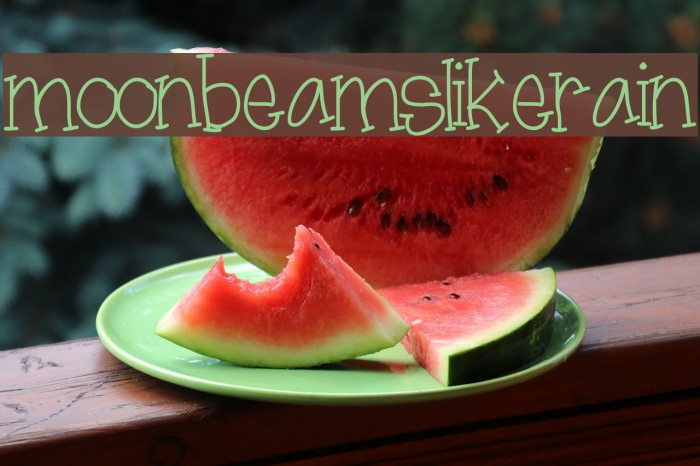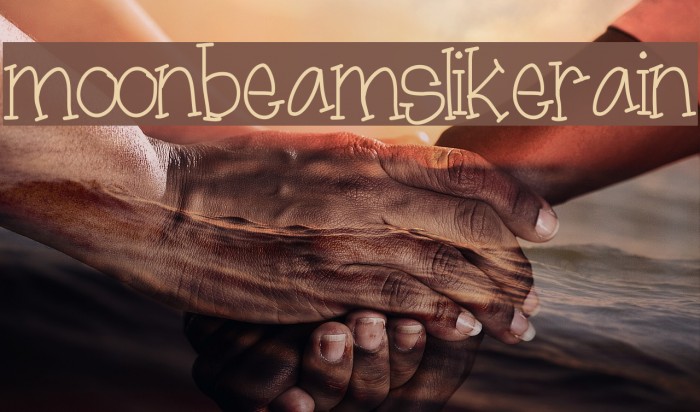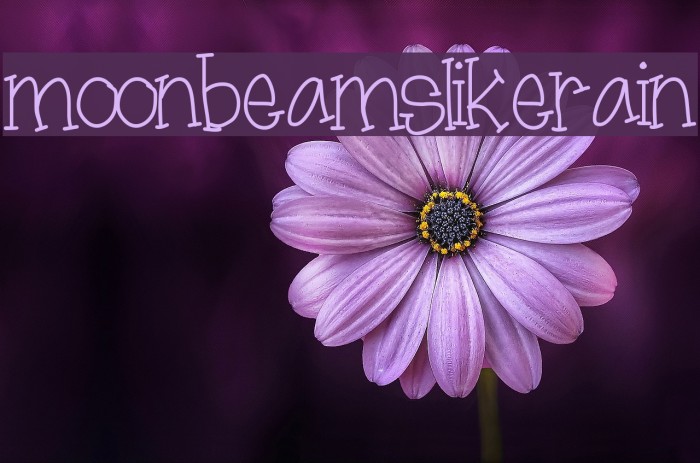
moonbeamslikerain Font
This playful and whimsical font features a hand-drawn style with irregular, slightly wavy lines that give it a casual and friendly appearance. The characters are tall and narrow, with a mix of straight and curved strokes, creating a lively and dynamic look. The uppercase and lowercase letters maintain a consistent style, with some letters having unique, quirky elements, such as the looped 'g' and the distinctive 'k'. The numbers and special characters follow the same playful design, making them suitable for creative and informal projects. Overall, this font exudes a sense of fun and creativity, perfect for adding a personal touch to any design.
A playful, hand-drawn font with a whimsical and casual style.
- Proposed Projects: Ideal for children's books, greeting cards, playful branding, and creative posters.
- Use Case: Headlines, Logos, Creative projects